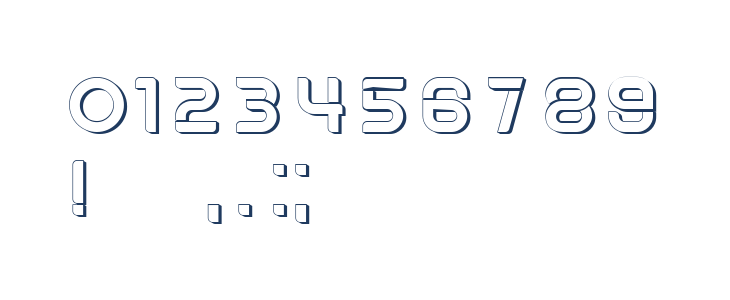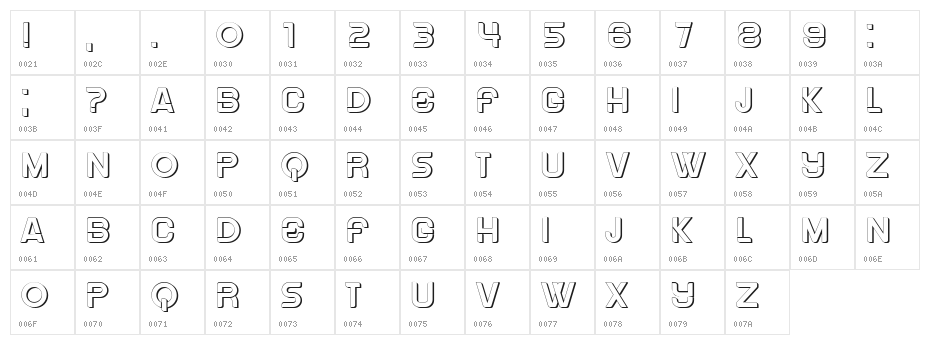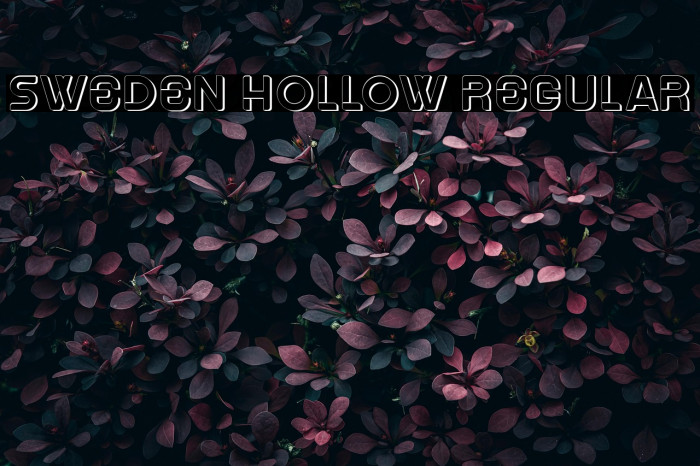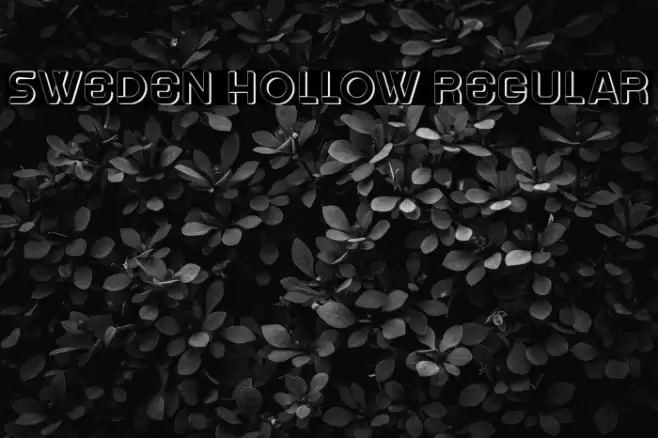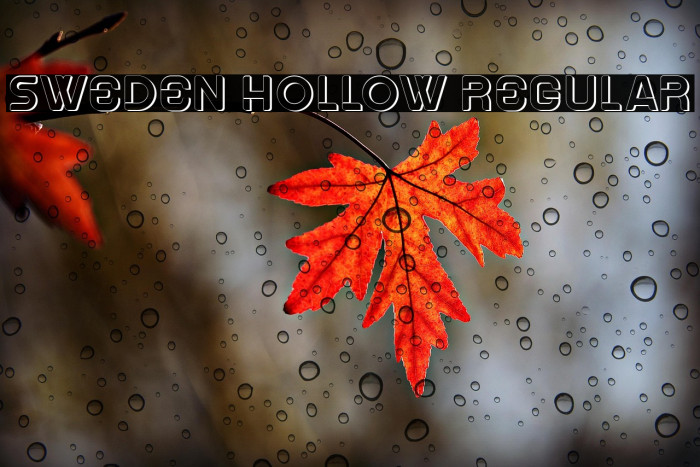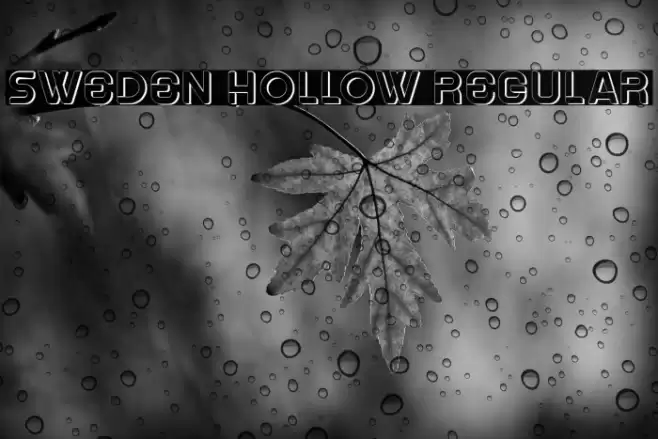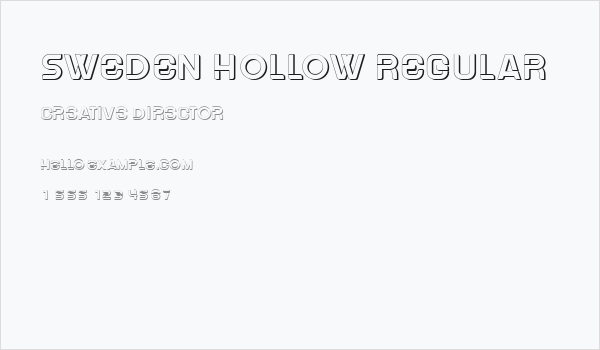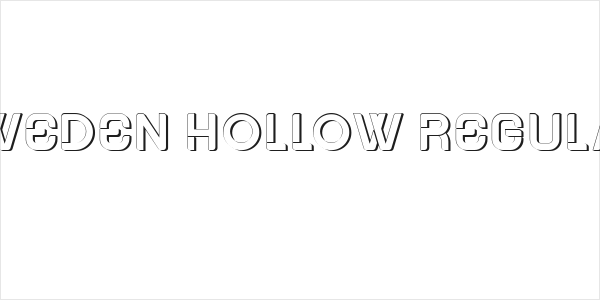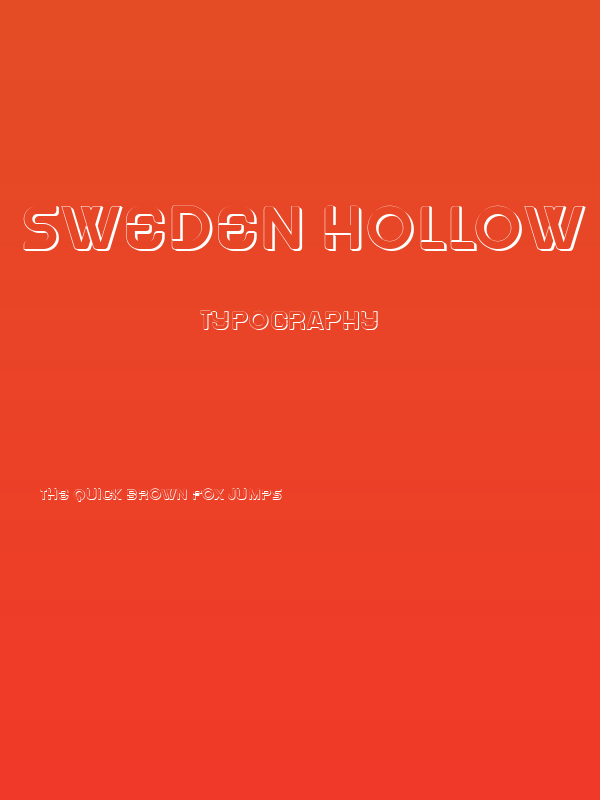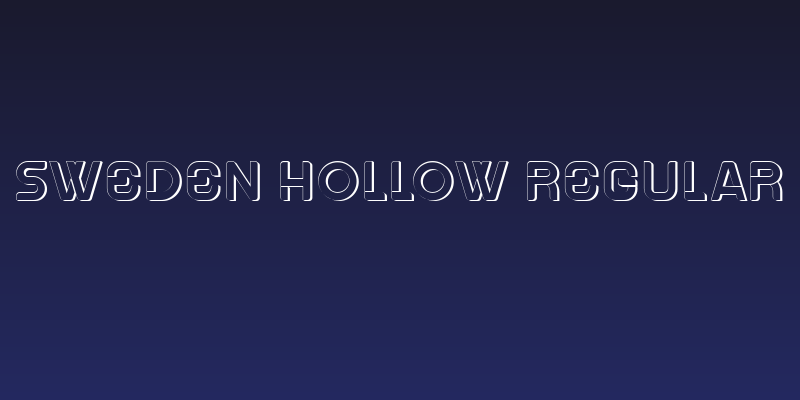
Sweden Hollow Regular Font
Sweden Hollow Regular Description
This font features a modern and geometric design with hollow, outlined characters that create a striking visual effect. The uppercase letters are bold and structured, with a consistent thickness throughout each character. The numerals and punctuation marks follow the same design principles, maintaining uniformity across the set. The font's hollow nature gives it a unique, airy appearance, making it stand out in any design project. Its clean lines and contemporary style make it suitable for a variety of creative applications.